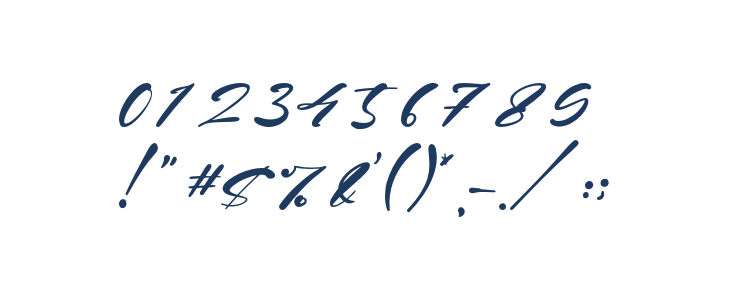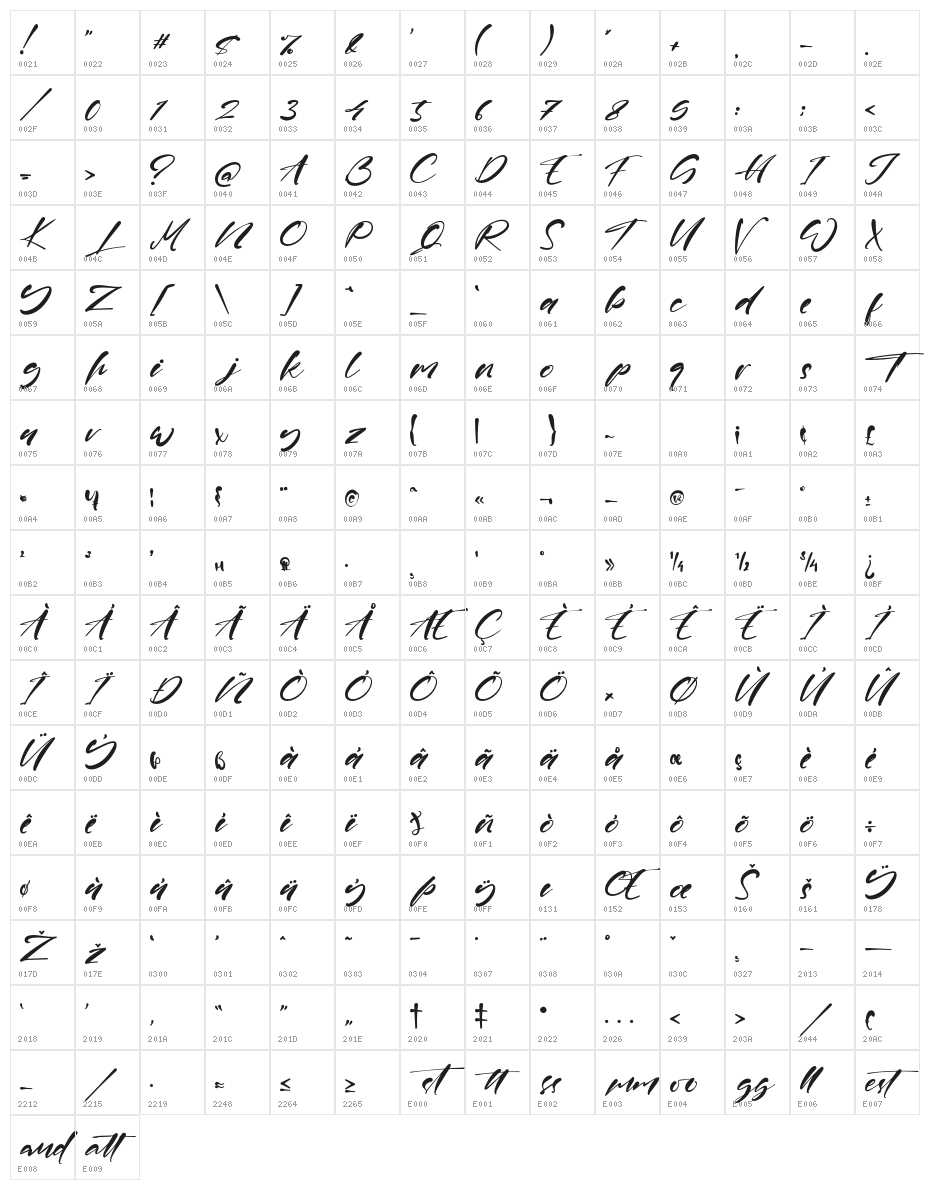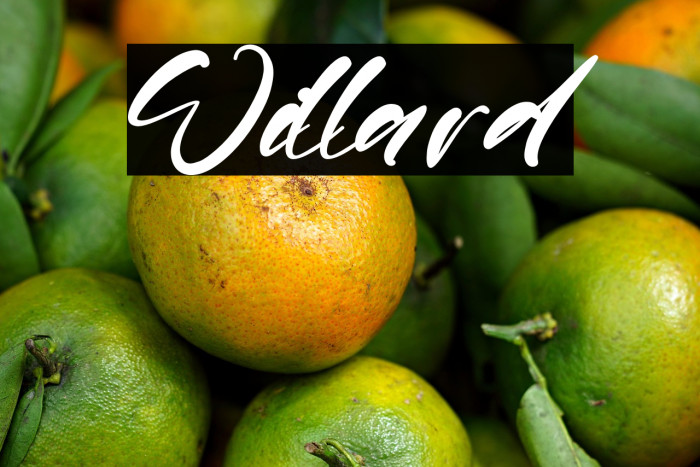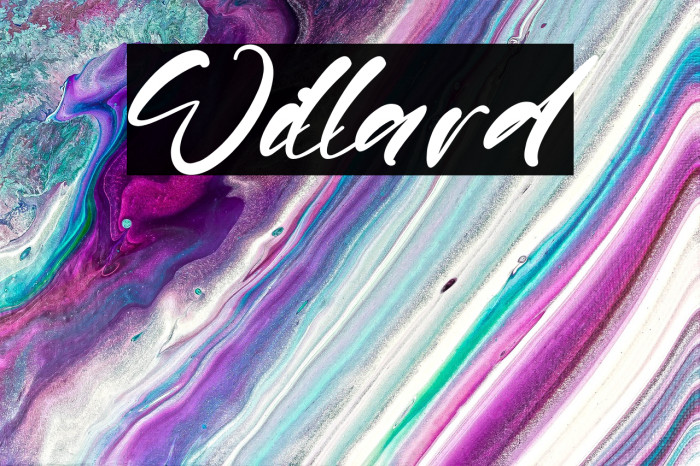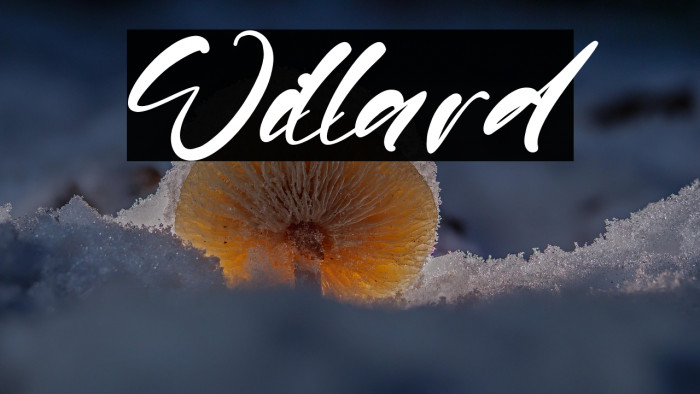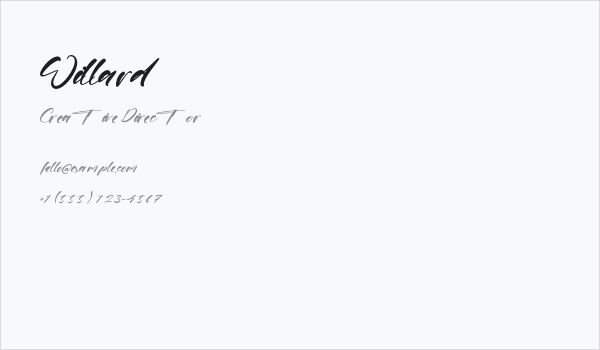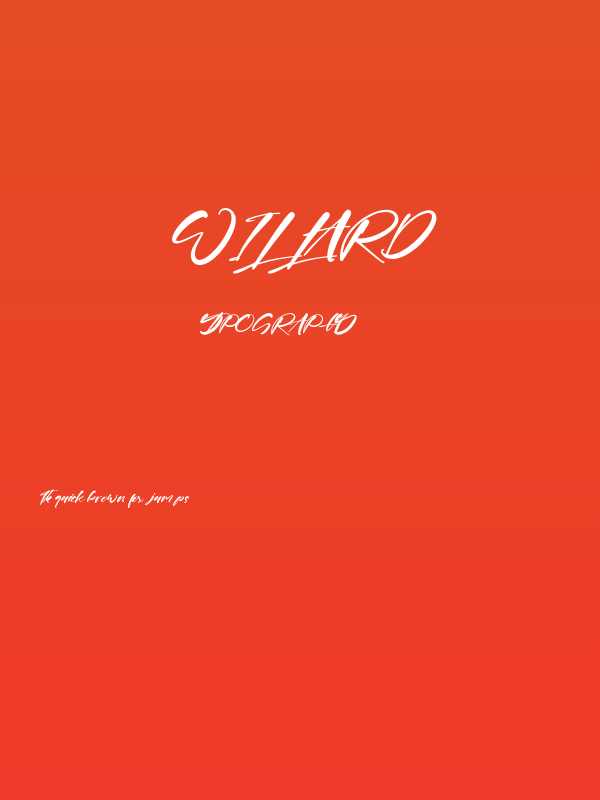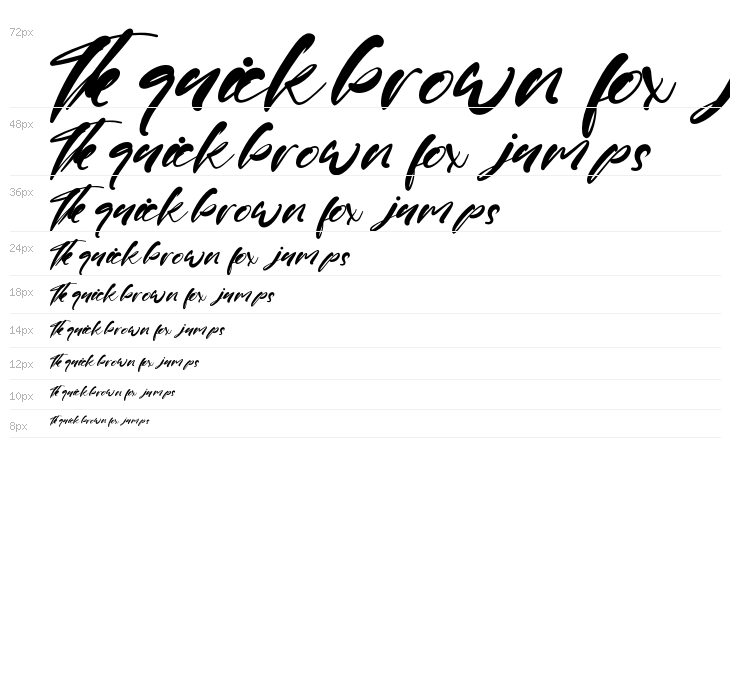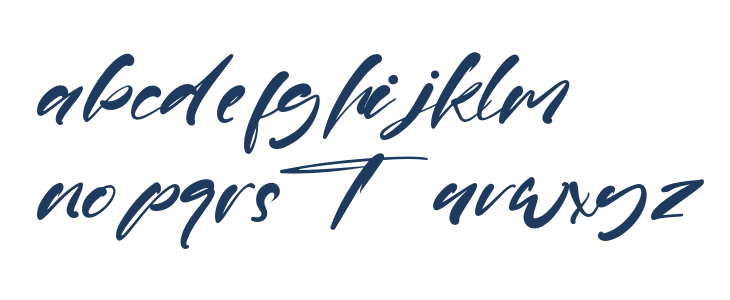
Willard Font
Willard Description
This font exudes a dynamic and expressive style, characterized by its fluid, handwritten appearance. The strokes are bold and sweeping, with a natural flow that mimics the motion of a brush or pen. The uppercase letters are particularly striking, with dramatic flourishes and varying line thickness that add a sense of movement and energy. The lowercase letters maintain this fluidity, offering a cohesive look that is both artistic and legible. Numbers and special characters are crafted with the same attention to detail, ensuring consistency throughout. This font is ideal for projects that require a personal touch or a creative flair, making it suitable for invitations, branding, and artistic endeavors.